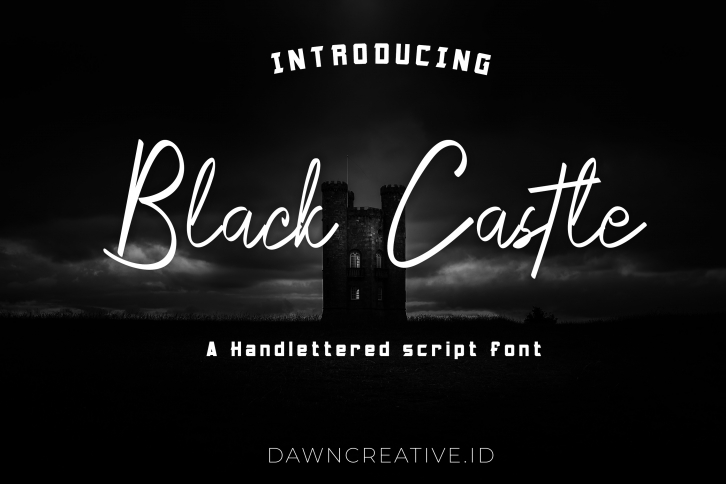
Black Castle is a trendy and unique font with an authentic style. It was designed by Dawn Creative and it's a great choice for creative people who need such a font. It was released on July 23, 2019 and the file size is 5.8 MB. Black Castle will add an organic vibe to any design idea!